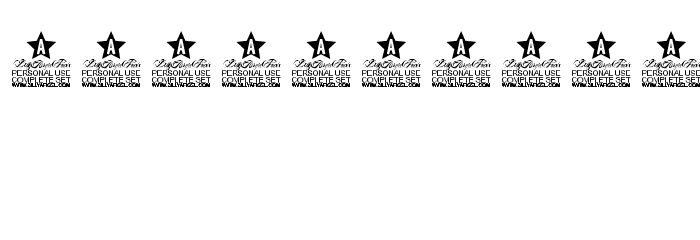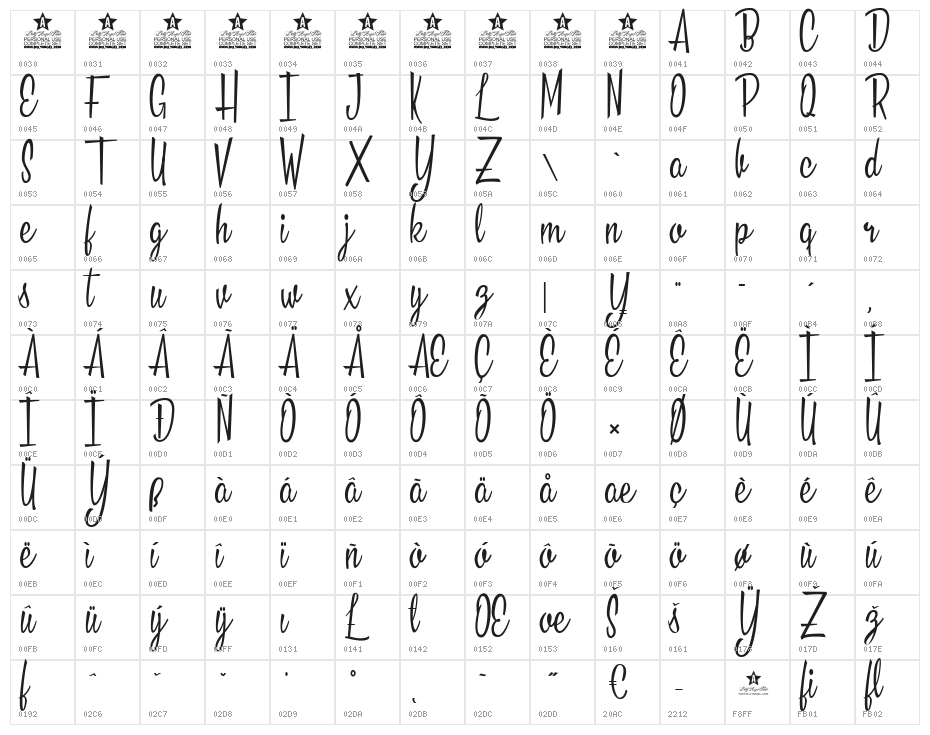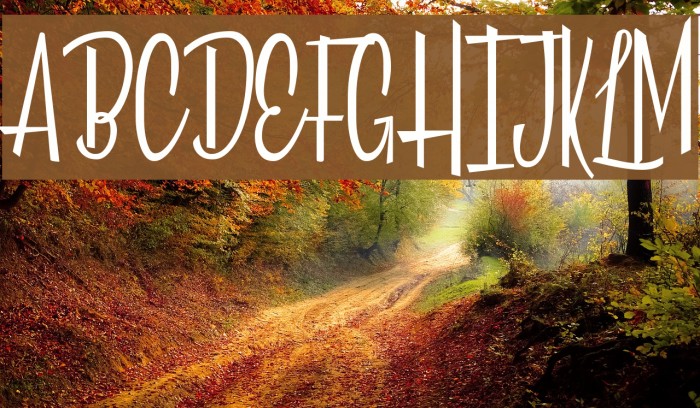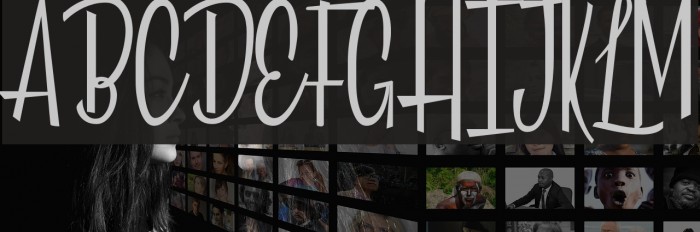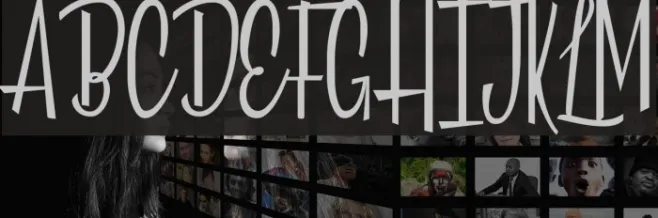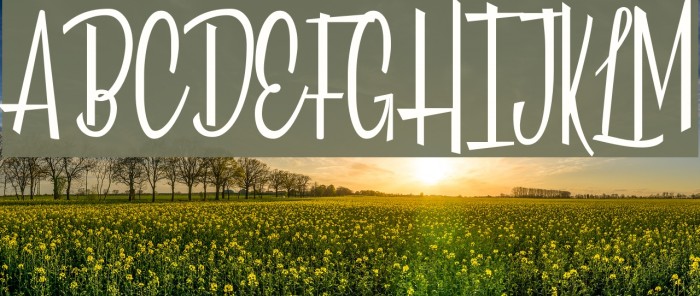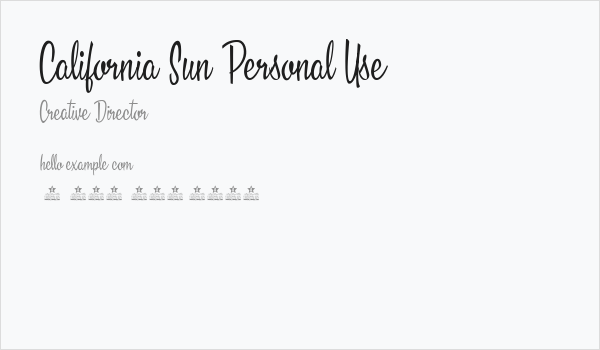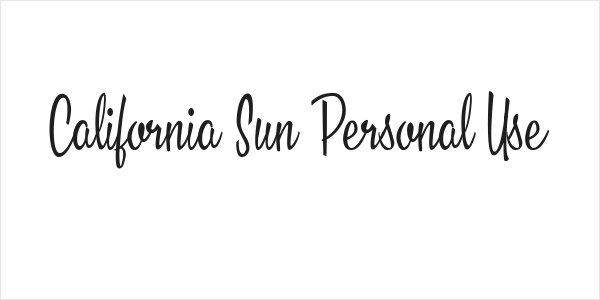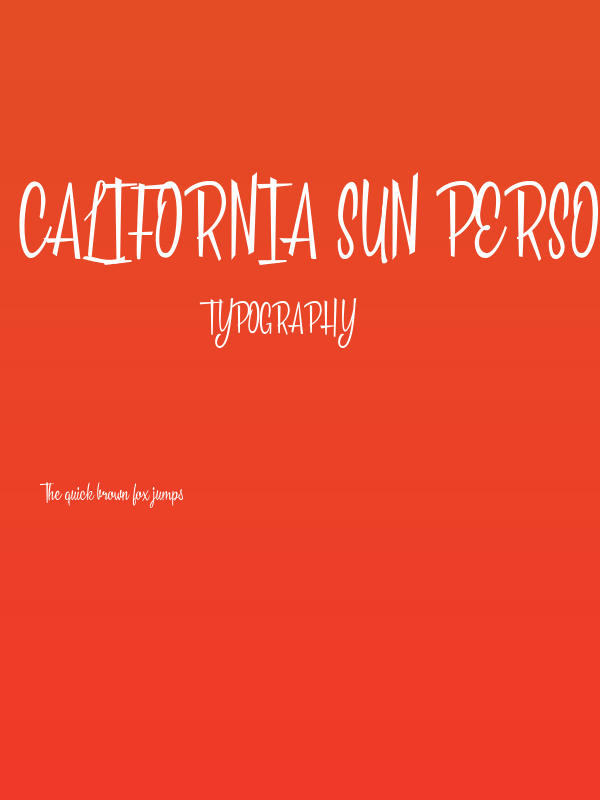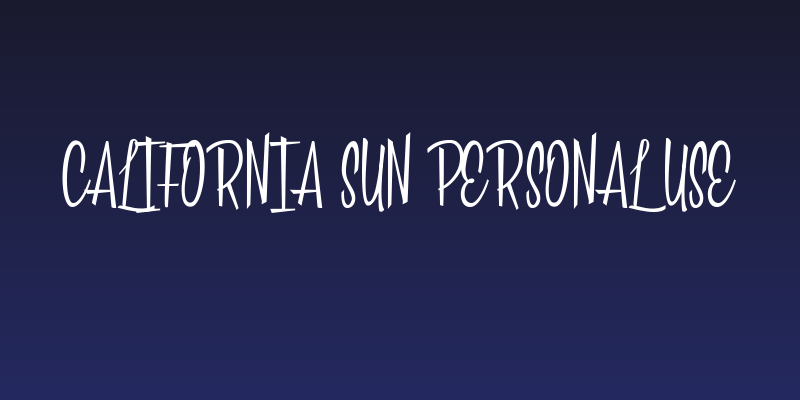
California Sun Personal Use Font
California Sun Personal Use Description
This font features a unique blend of bold and slender strokes, creating a dynamic and eye-catching appearance. The uppercase letters are tall and narrow, with a slight slant that adds a sense of movement and elegance. The lowercase letters are more fluid and connected, resembling a cursive style that enhances the font's overall charm. The numbers and special characters maintain the same stylistic elements, ensuring consistency throughout. This font's distinctive style makes it suitable for creative and artistic projects, where a touch of personality and flair is desired.